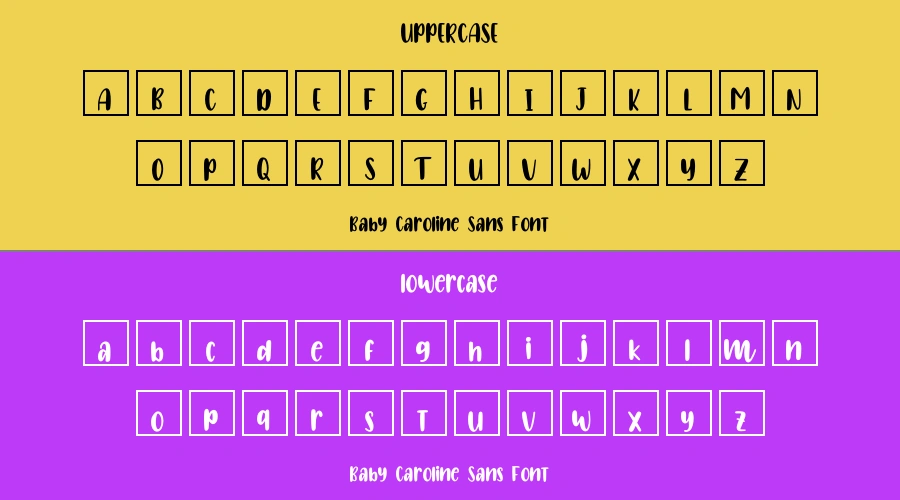
About Baby Caroline Sans Font
When typographic excellence matters most, Baby Caroline Sans Font delivers through its thoughtful blend of subtle details and memorable presence. Specially crafted for packaging hero, it offers the durability and technical precision required for sophisticated design work. Every detail serves a purpose.
The character set showcases thoughtful details like ball terminals alongside functional traditional styling. This proves especially valuable in artistic statements, where memory recall directly influences results. Particular attention was paid to x-height and technical authority during development.
Baby Caroline Sans Font |